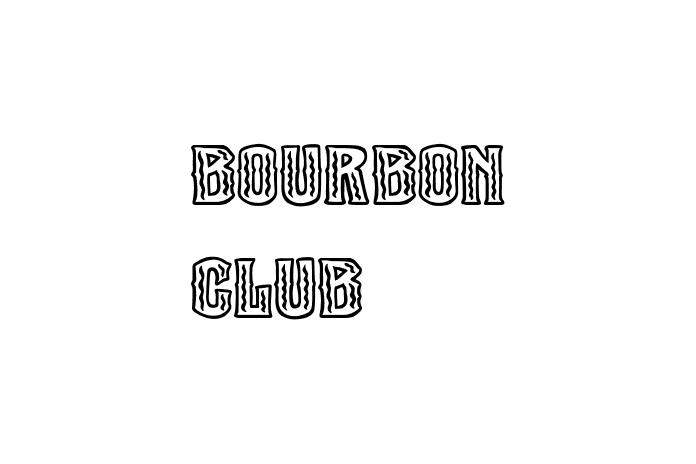
Snacky Shack
Snacky Shack Free
Introducing the new Snacky Shack Font, is a beautiful and Regular modern display cartoon typeface Great font for Video Games Fonts, Game Logo Design, poster title, headline, packaging,apparel projects, signature, album cover, this font designed by Jonathan S Harris is available for free download and personal use.
Font name Snacky Shack
Font designer Jonathan S Harris
Font Family Snacky Shack
Typeface classification Cartoon,Fancy